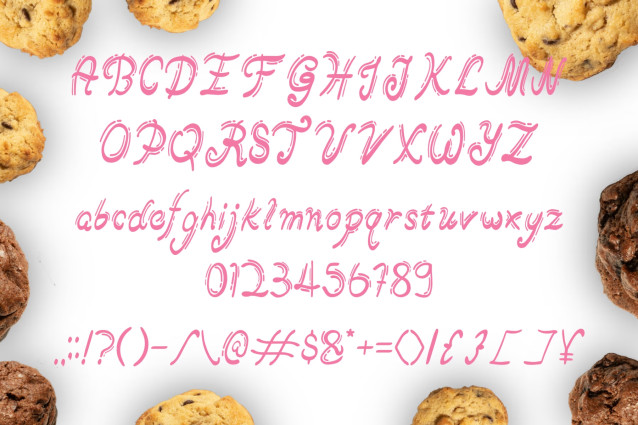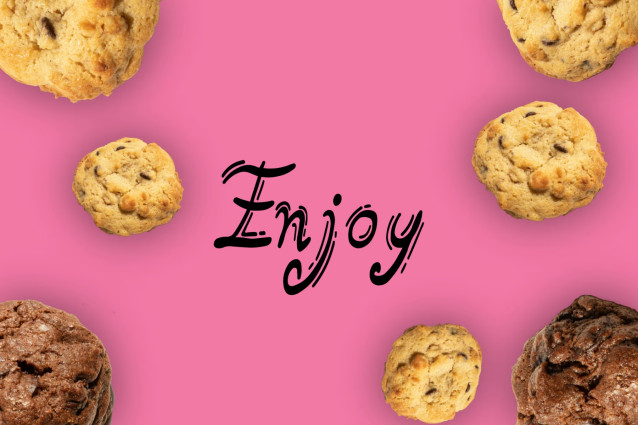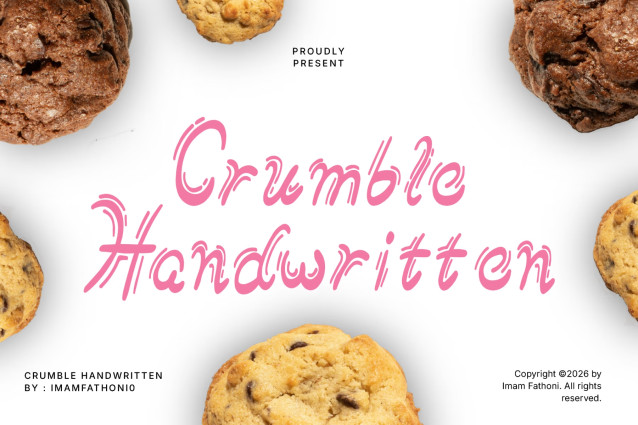
Infuse sweet fun, textured hand-drawn flair, and mouth-watering personality into your creative work with Crumble! Designed as a cute display font, each letter features unique inner inline details, soft rounded contours, and a bouncy hand-lettered flow. Its playful, bakery-inspired style gives sweet treats, packaging, and crafts a delightful homemade feel.
Ideal for bakery branding, cookie package labels, recipe cards, children’s menu graphics, birthday party decor, cute sticker packs, and custom Cricut or Silhouette craft SVG creations!